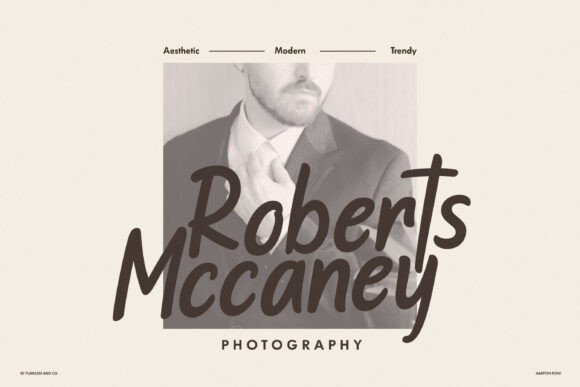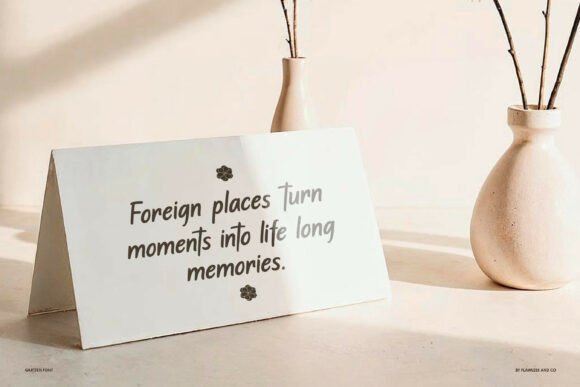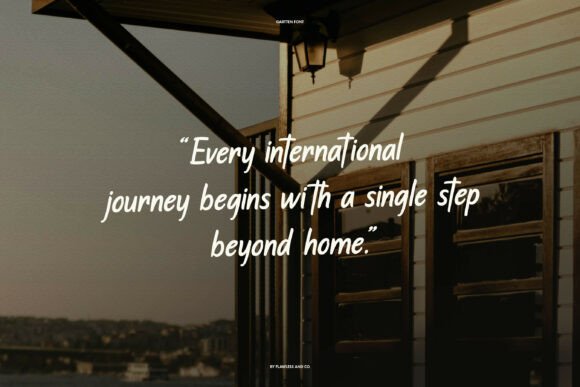
The Gartten Font: A Modern, High-Impact Lettering Game-Changer
I’ll never forget the design moment that led me to discover the Gartten font. I was working on a bold, streetwear-inspired branding project for a client who wanted a logo that would pop on social media and merchandise. I had spent hours scouring font libraries and marketplaces, but nothing seemed quite right – until I stumbled upon the Gartten typeface. Its thick, confident strokes and stylishly rugged silhouette immediately caught my eye, and I knew I had found the perfect fit.
- ✅ High-impact lettering: The Gartten font is designed to demand attention without losing its approachable, human touch.
- ✅ Exceptional legibility: Even from a distance, the Gartten typeface remains incredibly clear and easy to read.
- ✅ Versatility: This font is perfect for bold headlines, streetwear branding, and high-energy social media layouts.
- ✅ Dynamic visual tension: Pair the Gartten font with thin, minimalist sans-serif fonts for a contemporary and fresh look.
Small Quirks and Limitations 🤔
- ⚠️ Limited use cases for body text: Due to its distinct weight, the Gartten font may not be the best choice for lengthy paragraphs or body text.
- ⚠️ May not be suitable for all design styles: The Gartten typeface is geared towards bold, modern designs – it may not fit with more traditional or elegant design aesthetics.
The Designer Inspiration Behind Gartten
The Gartten font was inspired by the world of streetwear and graffiti. Its creator, a forward-thinking designer, sought to bridge the gap between casual marker sketches and professional graphic design. The result is a font that feels both modern and approachable – perfect for designers looking to make a statement.
| What makes the Gartten font so special? | The Gartten font’s unique blend of thick, confident strokes and a stylishly rugged silhouette makes it perfect for bold headlines and high-impact designs. |
| Can I use the Gartten font for body text? | While the Gartten font is incredibly legible, its distinct weight may make it less suitable for lengthy paragraphs or body text. It’s best used for headlines and titles. |
| Is the Gartten font suitable for logo design? | Absolutely! The Gartten font’s bold, confident look makes it perfect for logo design, especially for streetwear and modern brands. |
| Can I pair the Gartten font with other fonts? | Yes! The Gartten font pairs well with thin, minimalist sans-serif fonts to create a dynamic visual tension that feels contemporary and fresh. |